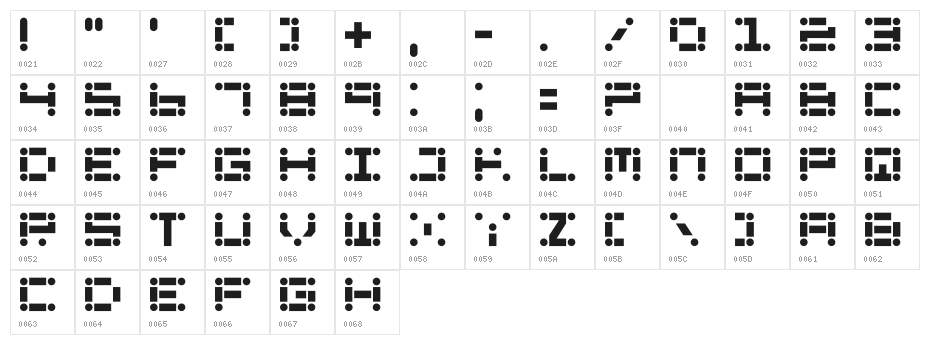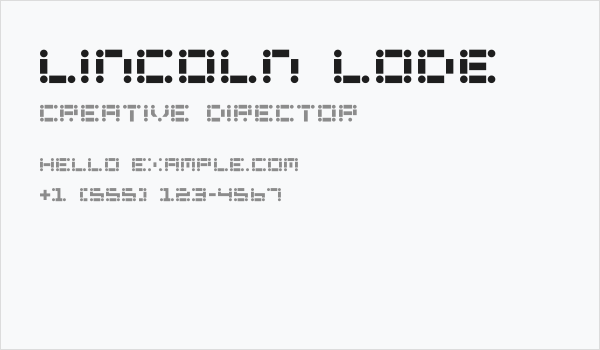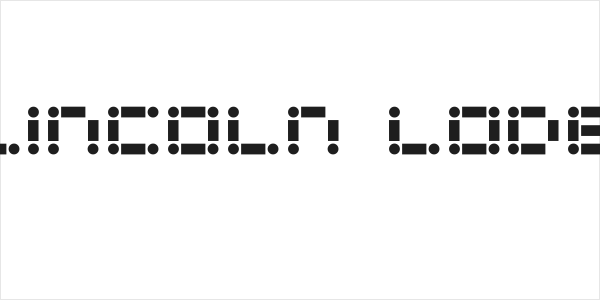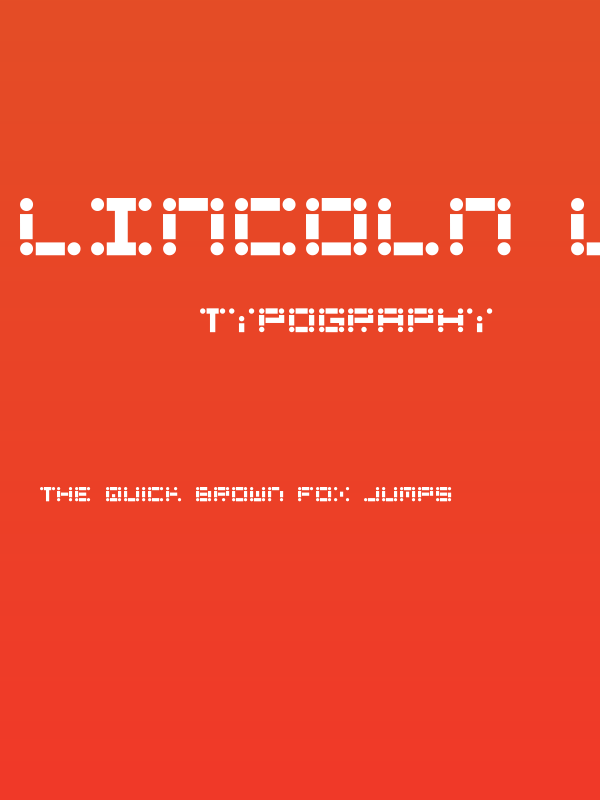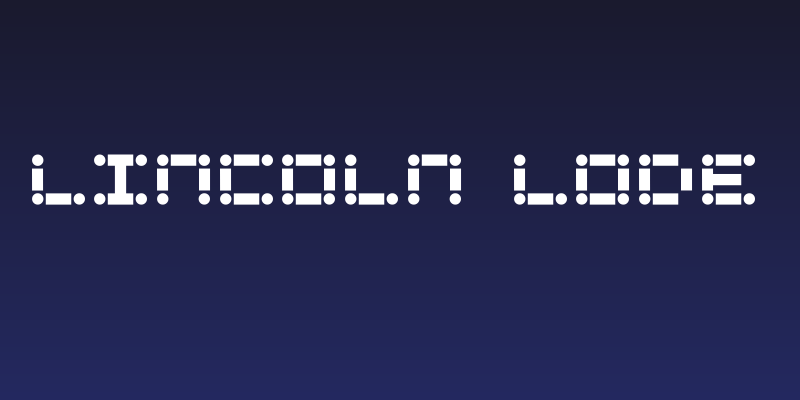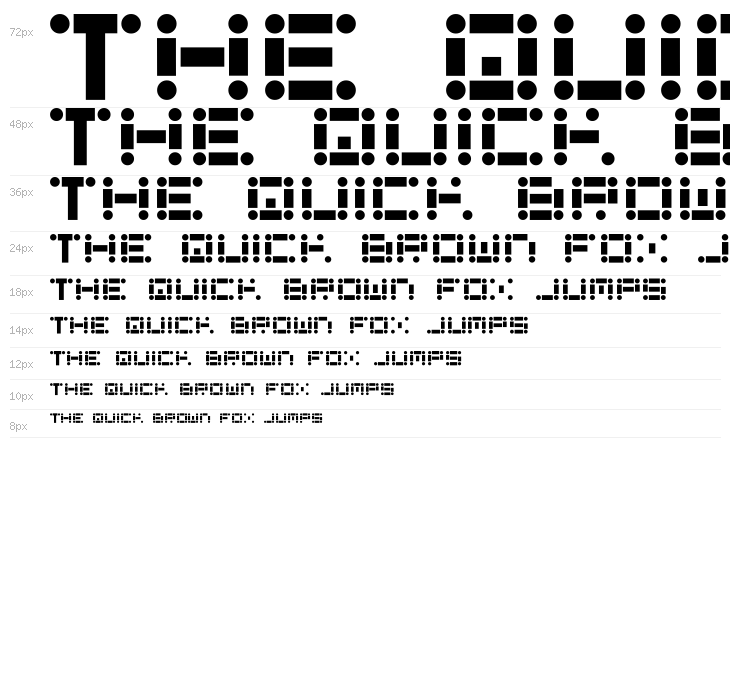
Lincoln Lode Font
Lincoln Lode Description
This font features a unique, futuristic design composed of dots and lines that form each character. The geometric structure gives it a digital, tech-inspired appearance, making it stand out with its modern and innovative style. The characters are evenly spaced, with a consistent pattern that maintains readability while offering a distinct visual appeal. The font's design is reminiscent of digital displays or electronic interfaces, providing a sense of modernity and sophistication. Its bold and structured form makes it suitable for projects that require a strong visual impact.
| Use Case | Logos, Headlines, Digital interfaces |
| Proposed Projects | Ideal for tech-related branding, digital interfaces, sci-fi themed projects, and modern advertising campaigns. |